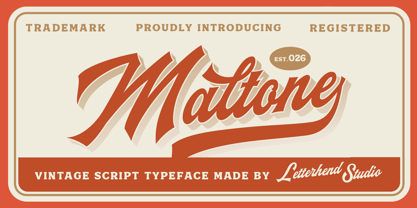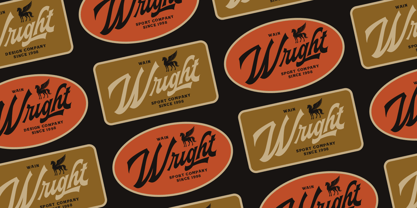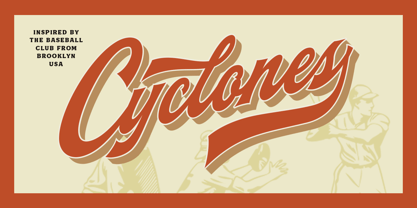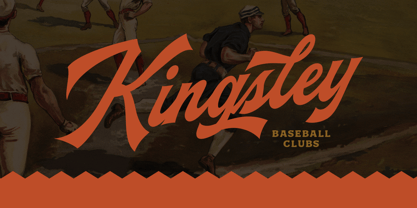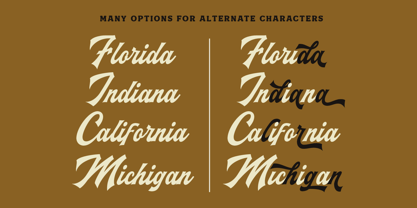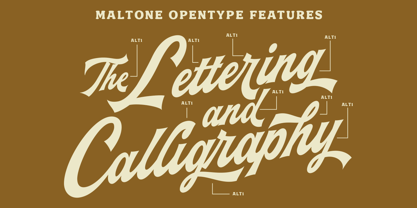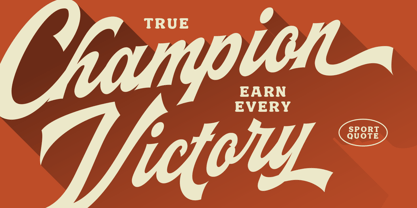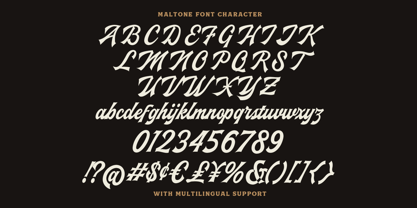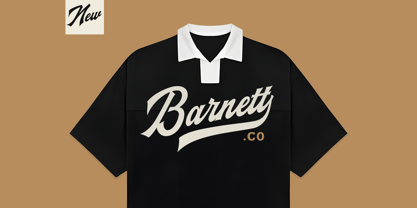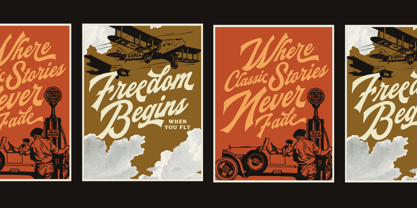
Maltone
von Letterhend
Die Schriftfamilie Maltone wurde von Hendry Juanda entworfen und von Letterhend veröffentlicht. Maltone enthält 1 Stile. Mehr über diese Familie
Maltone is a vintage script typeface with bold strokes, sweeping curves, and confident letterforms inspired by classic sign painting and retro labels. The look feels warm, timeless, and handcrafted, with a smooth flow that adds character without losing clarity. Its overall vibe is retro, confident, and friendly, making Maltone a strong choice for logos, posters, packaging text, signage, menus, and branding visuals that want a nostalgic touch with a clean, professional finish. Features : Uppercase & lowercase Numbers and punctuation Alternates & Ligatures Multilingual Support PUA encoded
Designer: Hendry Juanda
Foundry: Letterhend